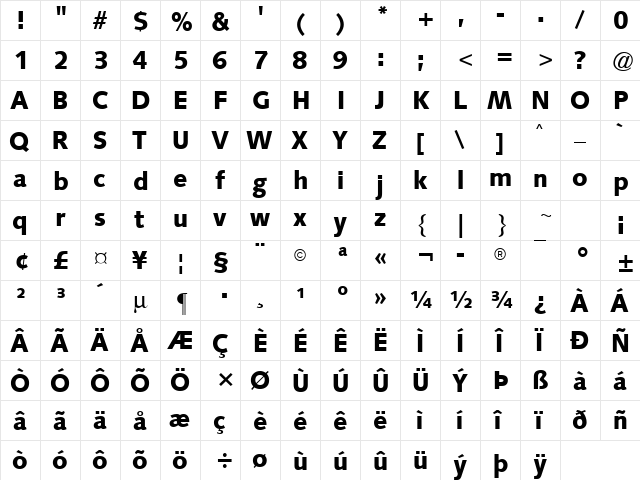
Symphony Black Regular
Design Context for Symphony Black Typeface
Symphony Black offers clean, dependable letterforms without strong stylistic allegiance, making it a practical choice for designers who need flexibility.
Pro Tip: Pair Symphony Black with a font of contrasting weight or personality to build a more expressive typographic hierarchy.